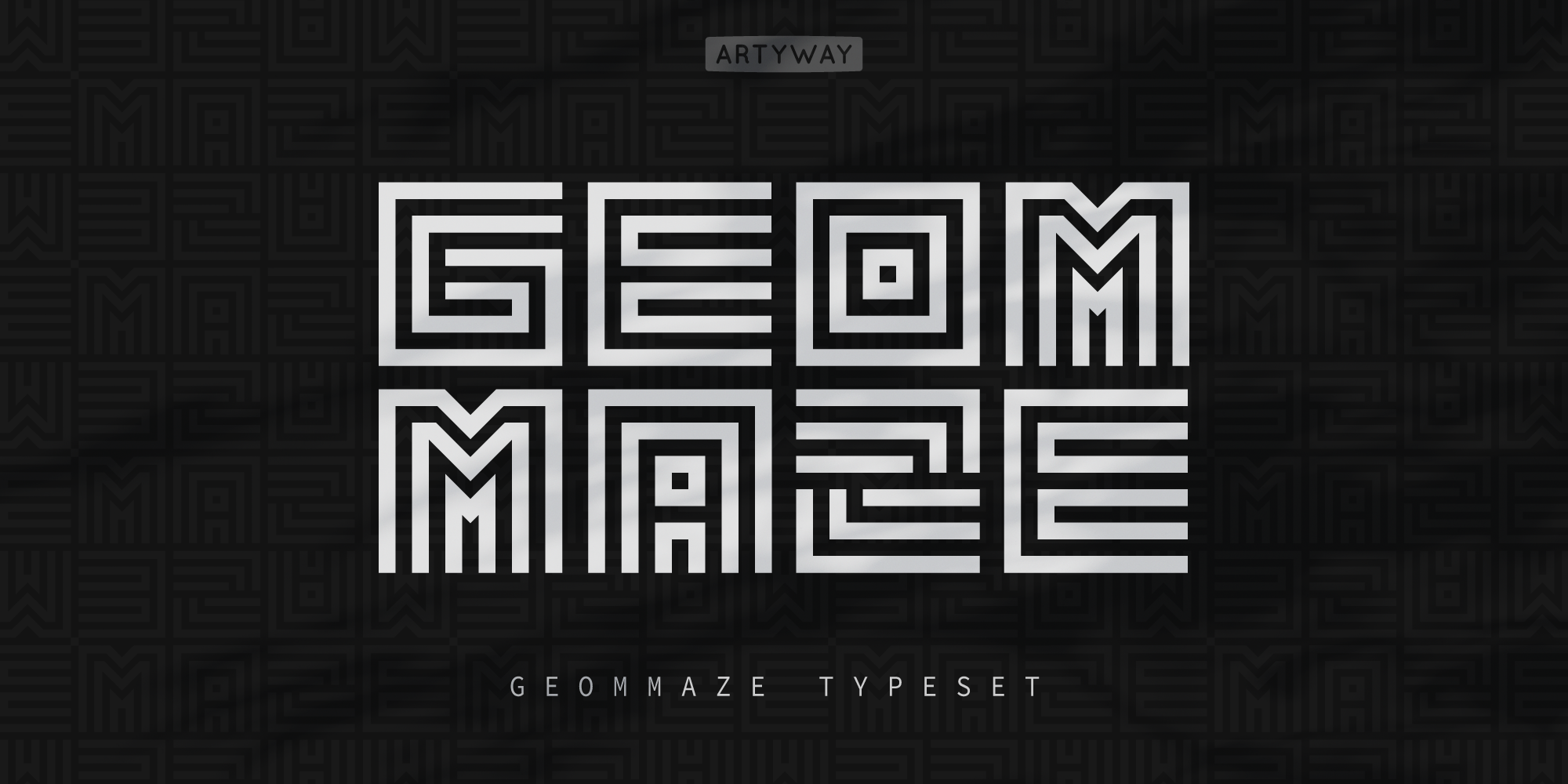
The Geommaze Font is a strikingly modern and often experimental display typeface, characterized by its intricate, geometric forms, sharp angles, and a distinct futuristic or abstract aesthetic. Imagine its cutting-edge characters dominating posters for high-tech conferences, adding a sophisticated edge to architectural plans, or creating captivating titles for science fiction films and digital art installations. Its robust yet intricate construction and efficient use of space also make it an excellent choice for corporate identities focused on innovation, complex data visualization, bold website headers, and any visual where precision, innovation, and a forward-thinking vision are paramount. Whether you're aiming for a minimalist, high-tech look or a powerful statement with refined complexity, Geommaze Font delivers with its unmistakable character, ensuring your visuals are both intriguing and truly memorable.
What makes Geommaze Font so exciting is its audacious ability to push typographic boundaries, creating a visual language that feels both engineered and artistic. It embodies a sense of progressive design and structural elegance, making it ideal for brands and projects that want to communicate innovation and a leading-edge perspective. This font isn't just about conveying text; it's about making a profound visual statement, setting a sophisticated yet daring tone, and adding a layer of technological or architectural intrigue to your creative work. It truly allows designers to craft narratives that are visually arresting and intellectually stimulating, making it an invaluable asset for those who want their designs to speak with authority and a unique modern voice.
The Geommaze Font family is typically structured to offer a range of styles that amplify its innovative and geometric appeal. Beyond the primary Geommaze Regular typeface, you might find companion styles such as a more impactful Geommaze Bold for stronger emphasis, or perhaps Geommaze Light for a delicate, airy quality. Given its clean, geometric leanings, the family may also include variations in width (e.g., Condensed or Expanded) to maximize versatility in different layouts, or specialized features like alternative characters that enhance its puzzle-like or interconnected forms. These diverse family members provide designers with the flexibility to establish a clear typographic hierarchy and maintain a consistent, cutting-edge, and often minimalist aesthetic across all elements of their project, from dominant headlines and logos to subtle design accents.